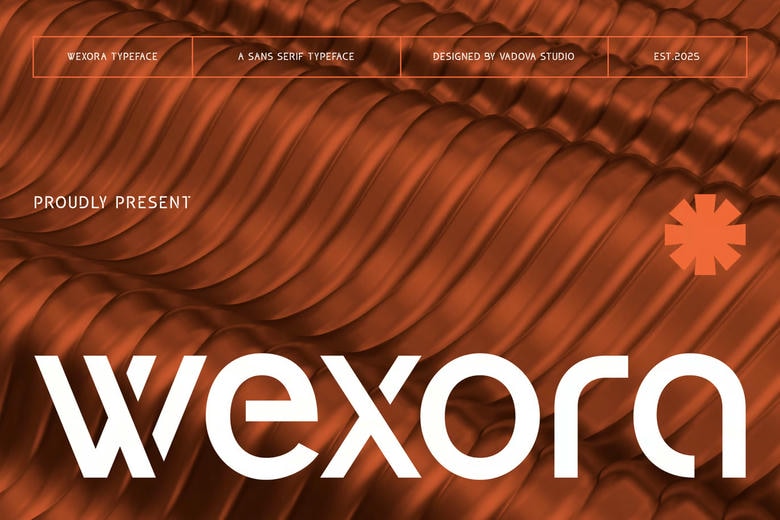
Wexora Font
Wexora is a modern sans serif font perfect for adding elegance and style to your projects. Whether it’s for quotes, logotypes, magazine headers, or more, this versatile typeface ensures your text stands out beautifully.
Wexora Sans Serif Font